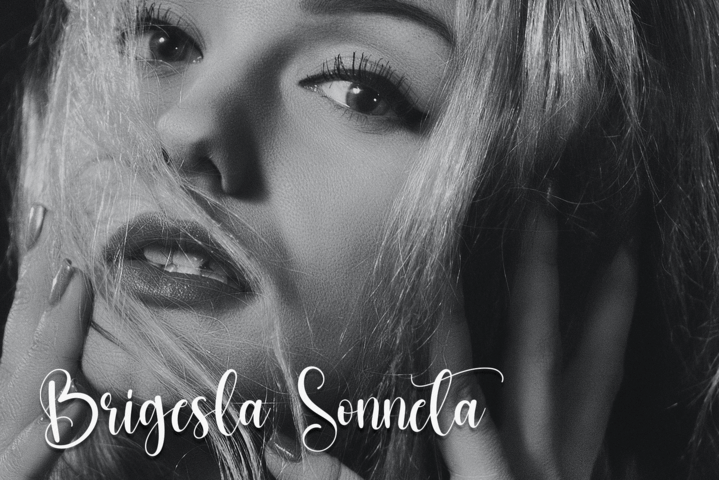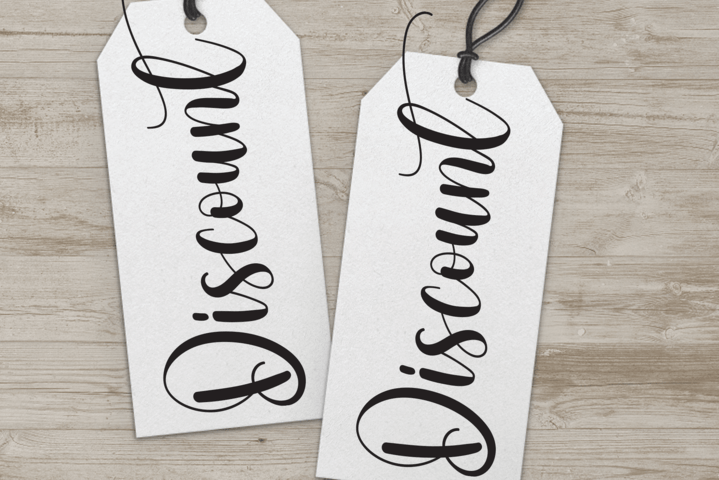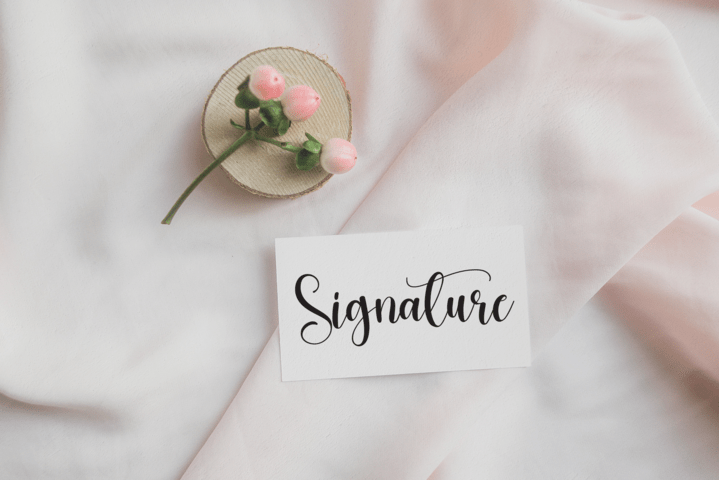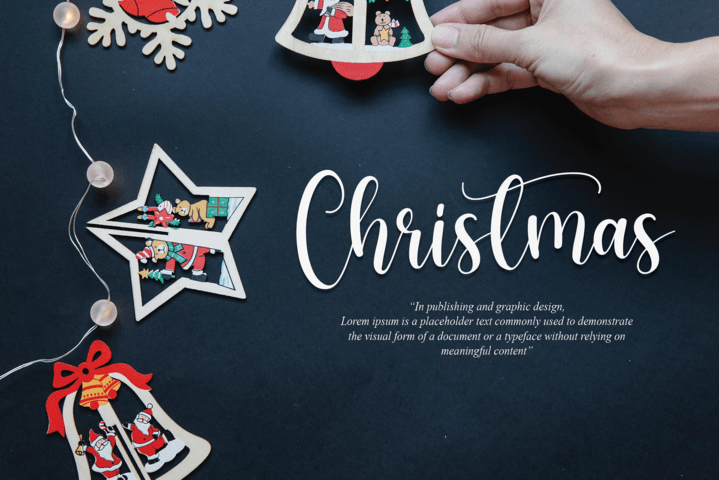
Birthday Script Typeface
This is a flowing and quirky handwritten font. It maintains its adaptable influences while feeling up to date and lovely. Fall in love with it and bring your projects to the highest levels!